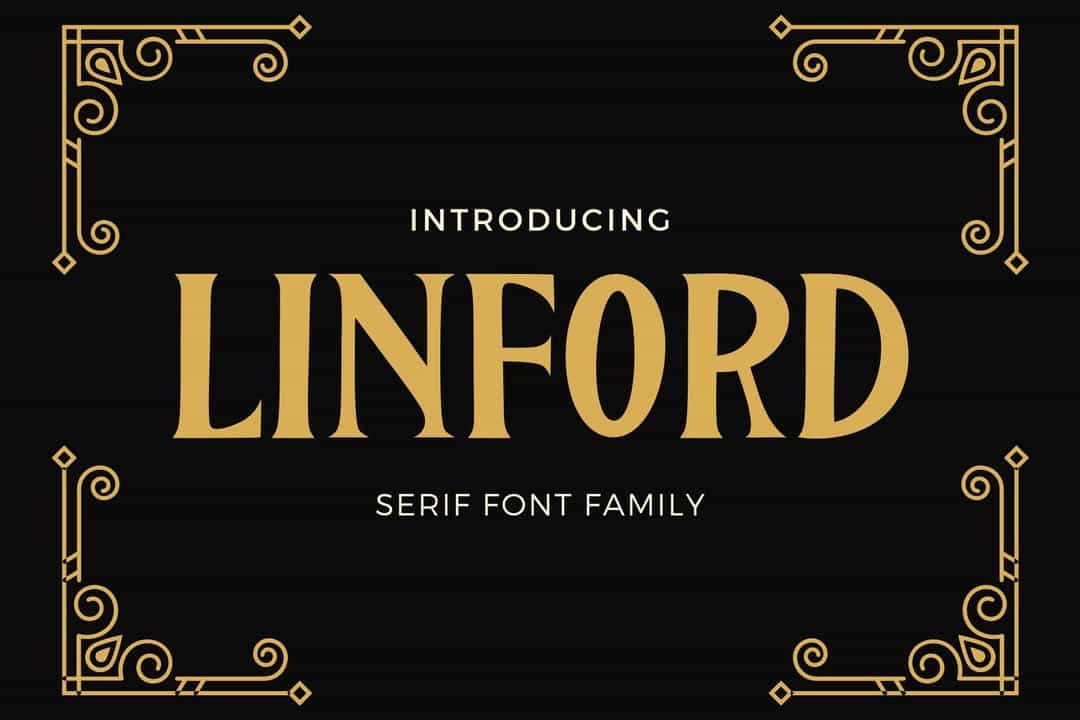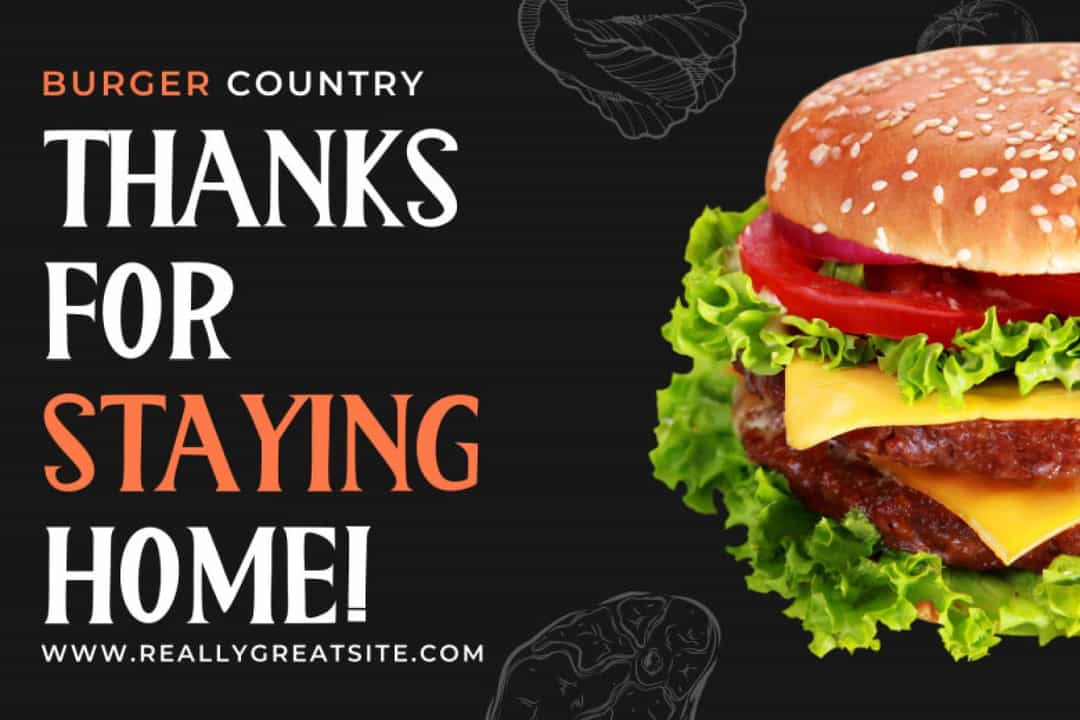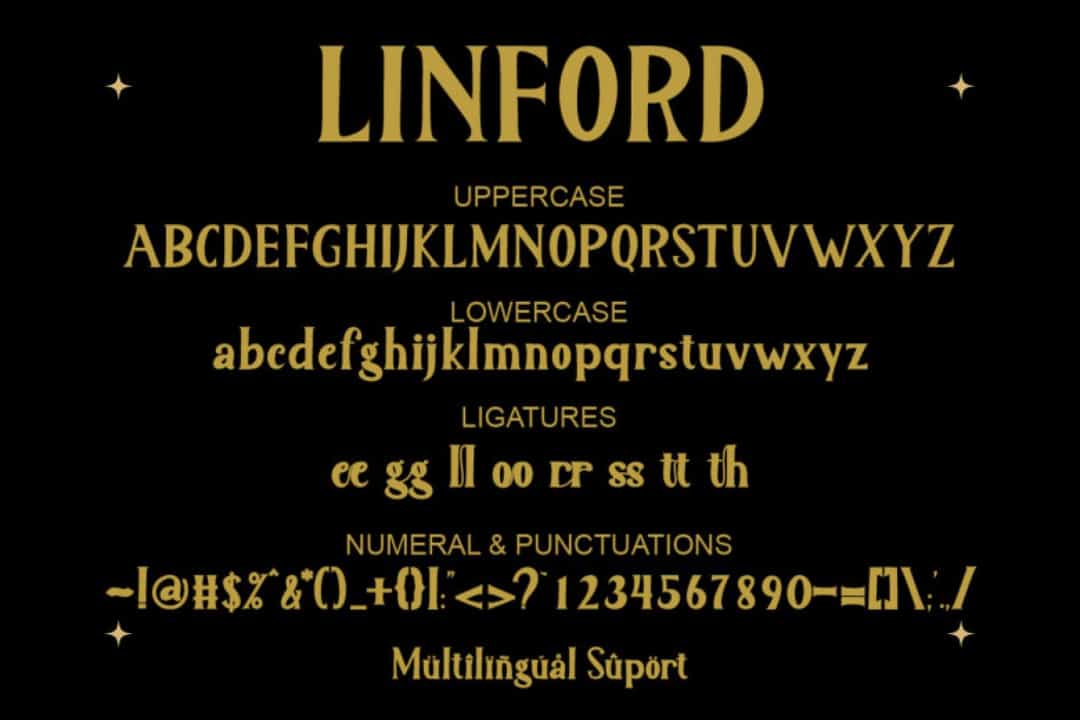
Linford Font is a beautiful serif font. This font is easy to use for all of your work and features 8 elegant ligatures that add sophistication and beauty. Perfect for marketing materials such as banners, posters, social media posts and promotions (such as hotels, villas businesses products and invitations).